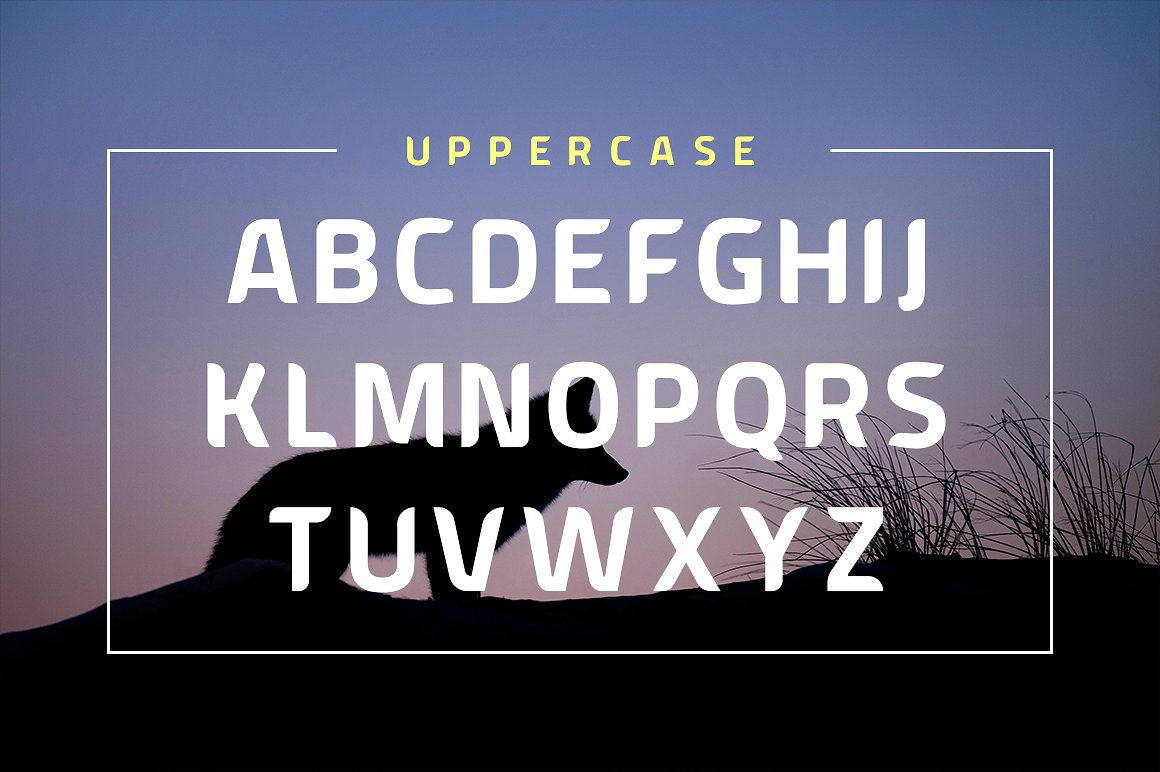
American Fox Font
American Fox Font – Free Demo
Inspired by a retro surfing poster. it’s perfect for you to show your design or product in professional way. Introducing American Fox Typeface. American Fox font very suitable for poster, for logo, music cover, clothing, and many many cool design projects. Amarican Fox font is uppercase and lowercas. Numeric and international font.